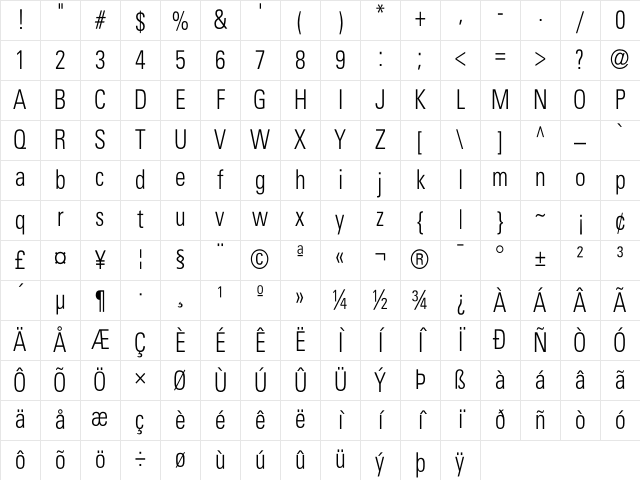
Beetham CondensedLight
Style: CondensedLight
Beetham Family
Complete Beetham CondensedLight glyph index. Displaying only characters natively supported by Beetham CondensedLight font.
Design Context for Beetham
Beetham is a composed and adaptable typeface that performs quietly and consistently across a wide range of design contexts. Its slender proportions lend an understated elegance to any composition. Its narrow stance lets it pack a punch even in space-constrained designs.